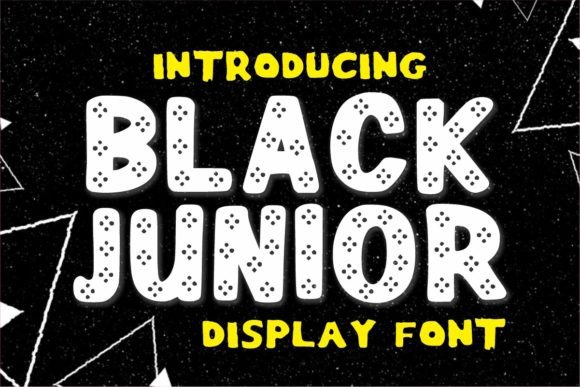
Blackjunior Font: A Fun and Cool Font that Combines Nostalgia with a Modern Twist
Fonts play a crucial role in bringing a design to life, and the right font can make all the difference in capturing the desired aesthetic. In the world of typography, there are countless fonts to choose from, each with its unique characteristics and charm. One such font that has been making waves in the design community is Blackjunior, a fun and cool font that effortlessly combines nostalgia with a modern twist.
The Unique Charm of Blackjunior Font
Blackjunior is a bold and eye-catching font that exudes a fun vintage feel. The letterforms are carefully crafted to capture the spirit of classic typography while adding a contemporary touch. The result is a font that is both nostalgic and modern, making it perfect for projects that seek a lively, retro-chic aesthetic.
Key Features of Blackjunior Font
- Bold Letterforms: Blackjunior features bold letterforms that are sure to grab attention.
- Fun Vintage Feel: The font has a classic, nostalgic feel that is reminiscent of vintage typography.
- Modern Twist: Despite its vintage feel, Blackjunior has a modern twist that makes it perfect for contemporary designs.
- Playful Character: The font has a playful character that brings a sense of fun and energy to designs.
Uses of Blackjunior Font
Blackjunior is a versatile font that can be used in a variety of projects, from branding and advertising to packaging and digital media. Its unique blend of nostalgia and modernity makes it perfect for:
Perfect for Retro-Chic Designs
- Branding: Use Blackjunior to create bold and eye-catching logos that capture the essence of your brand.
- Advertising: The font’s playful character makes it perfect for advertising campaigns that seek to grab attention.
- Packaging: Blackjunior is ideal for packaging designs that require a bold and attention-grabbing font.
- Digital Media: The font can be used in digital media, such as social media graphics, blog posts, and website headers.
Why Choose Blackjunior Font?
With so many fonts to choose from, why should you choose Blackjunior? Here are a few reasons:
Reasons to Choose Blackjunior
- Unique Aesthetic: Blackjunior has a unique aesthetic that sets it apart from other fonts.
- Versatility: The font is versatile and can be used in a variety of projects.
- Easy to Read: Despite its bold letterforms, Blackjunior is easy to read, making it perfect for body text and headlines.
- Customizable: The font can be customized to fit your design needs.
Tips for Using Blackjunior Font
Here are a few tips for using Blackjunior font:
Tips for Using Blackjunior
- Use it Sparingly: Use Blackjunior sparingly to avoid overwhelming your design.
- Pair it with Other Fonts: Pair Blackjunior with other fonts to create a unique and interesting design.
- Experiment with Colors: Experiment with different colors to find the perfect combination for your design.
- Keep it Legible: Make sure to keep your text legible by using a clear and easy-to-read font.
In conclusion, Blackjunior font is a fun and cool font that effortlessly combines nostalgia with a modern twist. Its bold letterforms exude a fun vintage feel, capturing the spirit while adding a contemporary touch. Ideal for projects seeking a lively, retro-chic aesthetic, Blackjunior brings a playful character to your designs. With its versatility, ease of use, and unique aesthetic, Blackjunior is the perfect font for designers looking to add a touch of nostalgia and modernity to their designs.